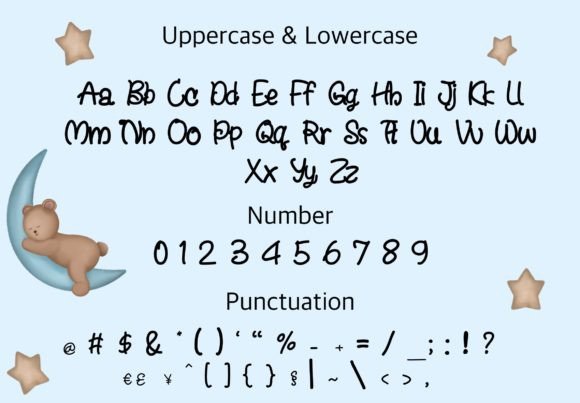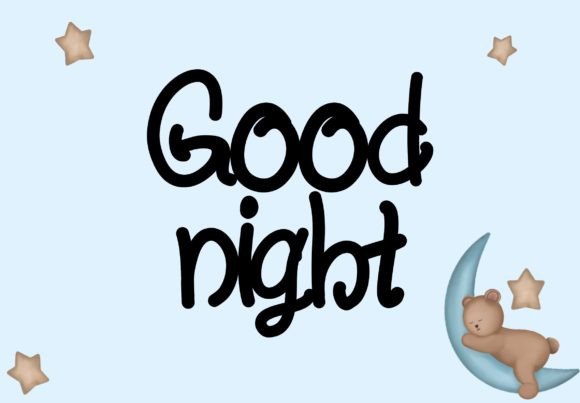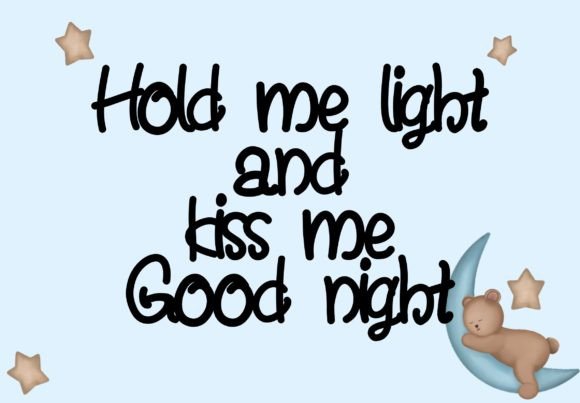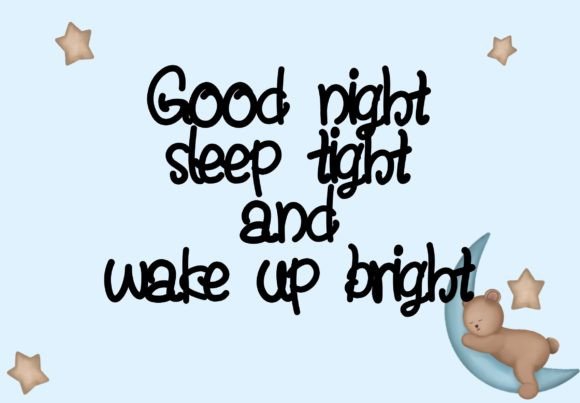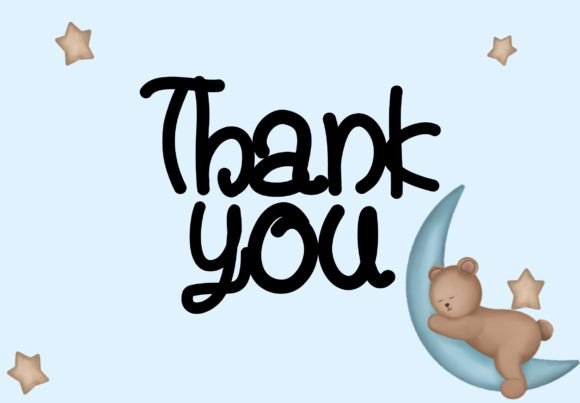
Midnight Font
About Midnight Font
“Midnight” is a cute and simple handwritten font that is perfectly tailored for a variety of creative projects. Its charming simplicity makes it an ideal choice for Christmas projects, Halloween designs, invitations, wedding invitations, wall displays, social media posts, logos, T-shirts, posters, product packaging, product designs, labels, stationery, and more.
The versatility of “Midnight” shines through in its suitability for a wide range of occasions and themes. Its cute and simple design makes it particularly fitting for festive projects like Christmas and Halloween, where it can add a touch of whimsy and charm. The handwritten aesthetic of the font brings a personal and authentic feel, making it a great choice for invitations and other personalized designs.
Imagine “Midnight” gracing a Christmas card, where its cute and simple strokes capture the joyful spirit of the season. Picture it on Halloween-themed T-shirts, adding a playful and spooky element to the design. Envision this font enhancing wedding invitations, creating a charming and unique look.
The applications of “Midnight” extend to various design elements, allowing it to be a versatile addition to your creative endeavors. Whether you’re a designer working on holiday projects or an individual looking to add a cute and simple touch to your creations, “Midnight” invites you to take your designs to the next level. Let this font be the delightful addition that brings a touch of character and warmth to your diverse range of projects.